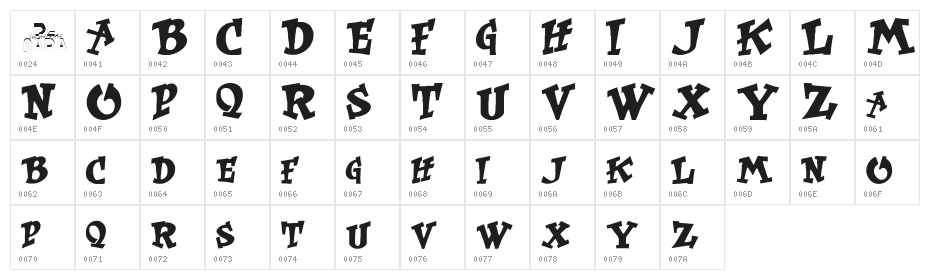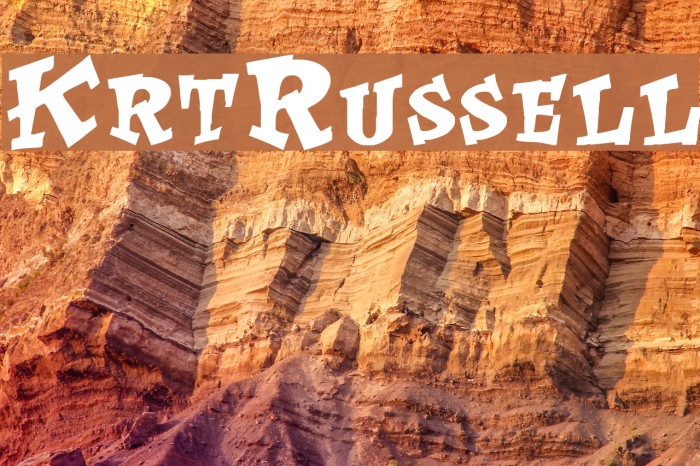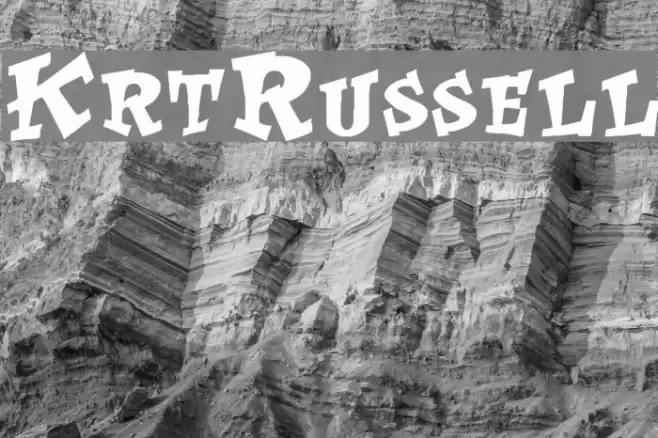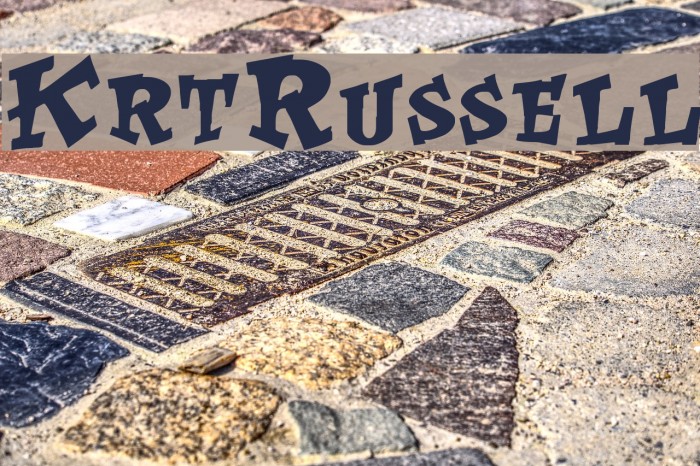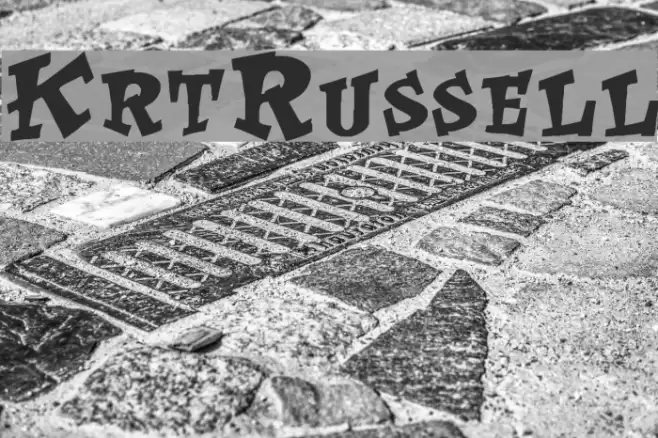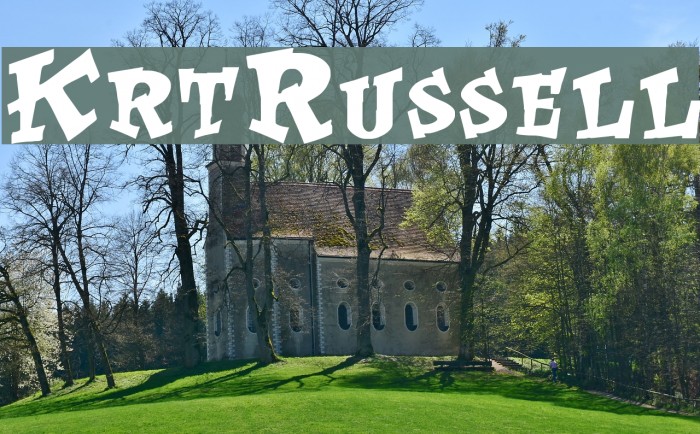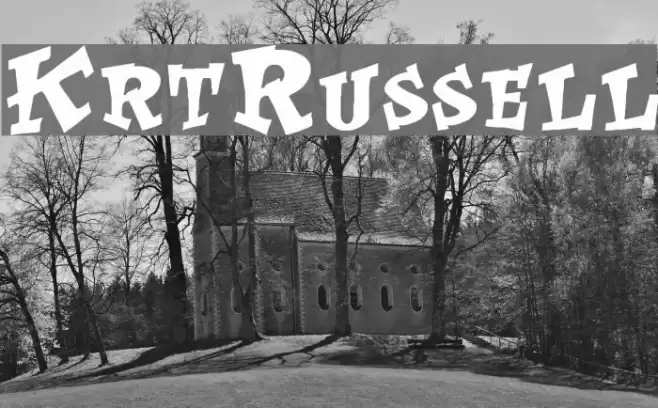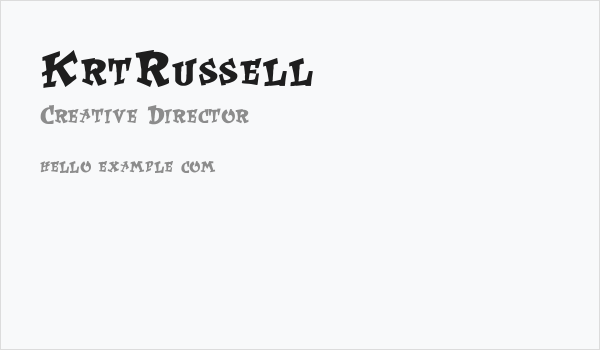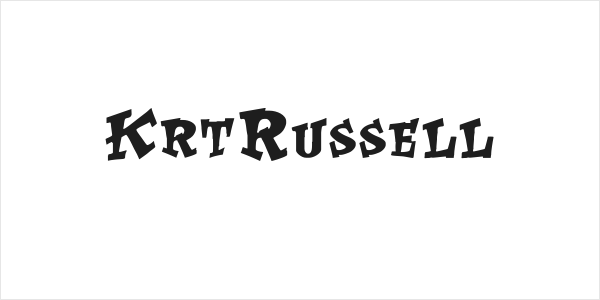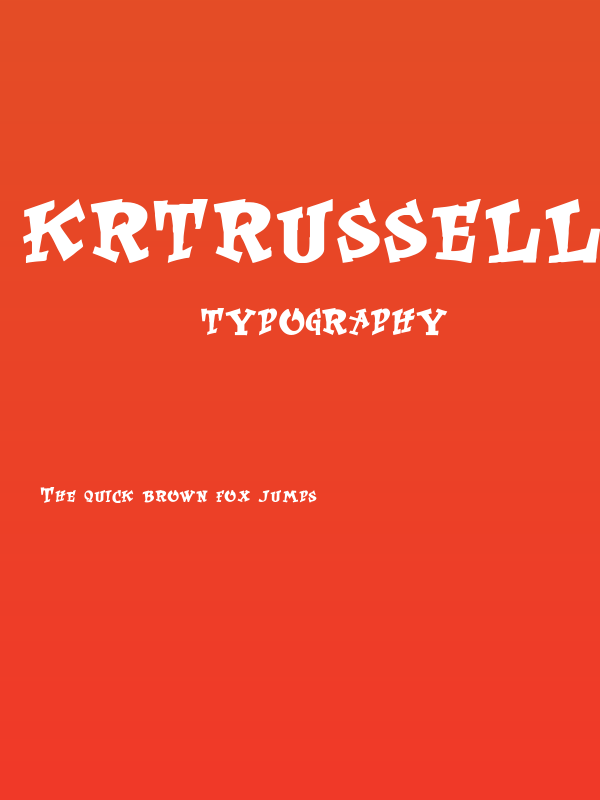
KrtRussell Font
KrtRussell Description
This font features a bold and playful design with a distinctive, slightly irregular shape to each letter, giving it a whimsical and energetic appearance. The characters have a strong presence, with thick strokes and a unique, angular style that adds a sense of movement and dynamism. The uppercase letters are particularly striking, with exaggerated serifs and a slightly tilted orientation that enhances the playful aesthetic. This font is well-suited for creative projects that require a fun and engaging visual impact.
| Overall Style | Playful, Energetic, Whimsical |
| Proposed Projects | Ideal for children's book covers, playful branding, party invitations, and eye-catching posters. |